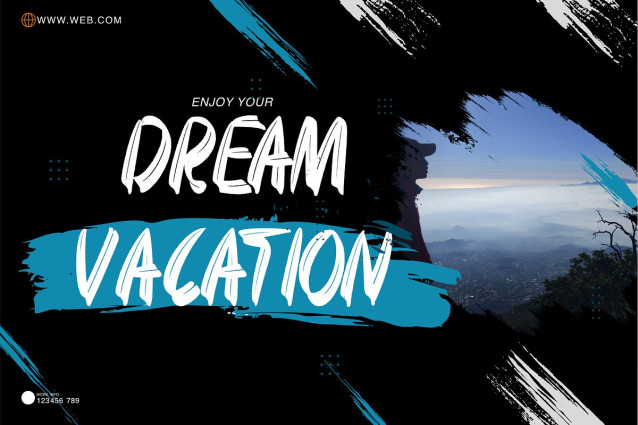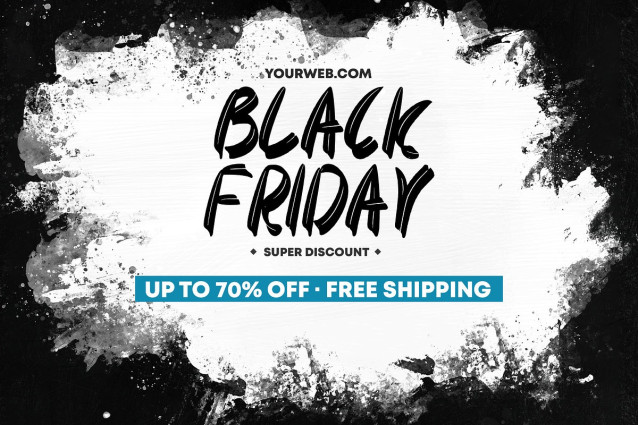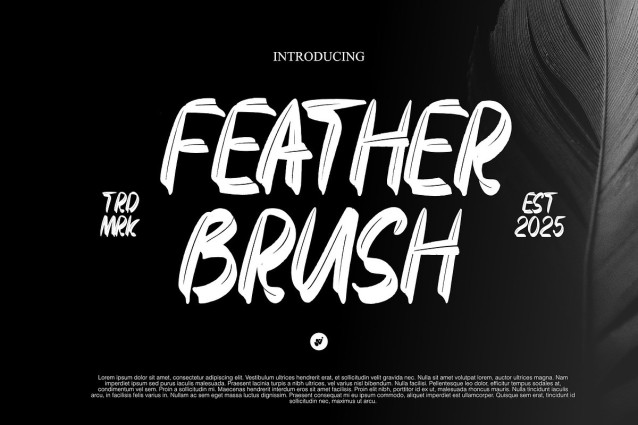
Feather Brush Font
Feather Brush fonts are versatile typefaces that mimic the texture and fluidity of hand-painted strokes, often created with a brush pen or paintbrush. They are ideal for adding a personal, artistic, and dynamic touch to designs. Commonly used in logos, posters, social media graphics, product packaging, and invitations, brush fonts convey creativity, energy, and authenticity. Their organic, imperfect edges make them perfect for projects that need a bold yet human feel, whether for modern branding or expressive, casual designs.